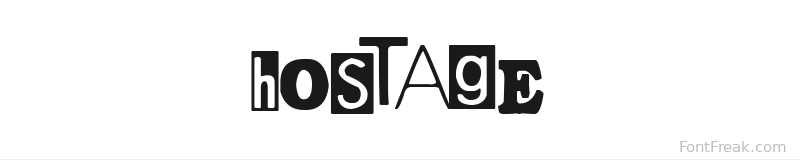
Hostage
The Hostage font, crafted by the talented woodcutter Manero, is a distinctive display typeface that stands out with its bold, expressive character. This font falls into the decorative category, characterized by its unique, artistic flair that draws attention. The stroke weight is notably varied, giving it a dynamic feel, while the contrast between thick and thin lines enhances its visual impact. Each letter exhibits a playful irregularity, with carefully spaced characters that contribute to its overall charm. Decorative elements are subtly integrated, making the font suitable for a range of creative applications.
The Hostage font is ideal for use in various contexts, including vibrant movie posters, eye-catching restaurant menus, and engaging event flyers. Its bold presence makes it particularly suited for branding projects, where capturing audience attention is paramount. Additionally, it can serve well in artistic endeavors such as album covers or merchandise designs, where a unique aesthetic is desired. This font appeals to graphic designers, small business owners, and content creators who seek to make a statement with their typography.
What sets the Hostage font apart is its ability to convey personality and creativity while remaining versatile enough for multiple applications. The artistic quality of the letters invites exploration and usage in both digital and print media. The Hostage font free download offers an opportunity for designers to experiment with a fresh and engaging typeface that can elevate their projects. Whether you're looking to create something whimsical or bold, this font provides the perfect canvas for your creative expression, ensuring your work stands out in a crowded marketplace.